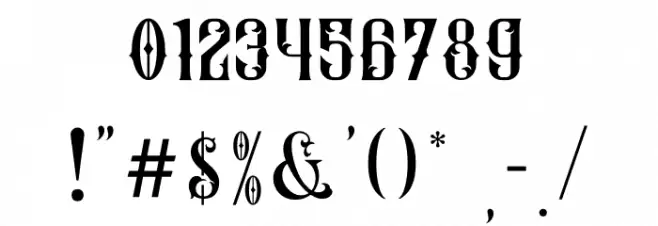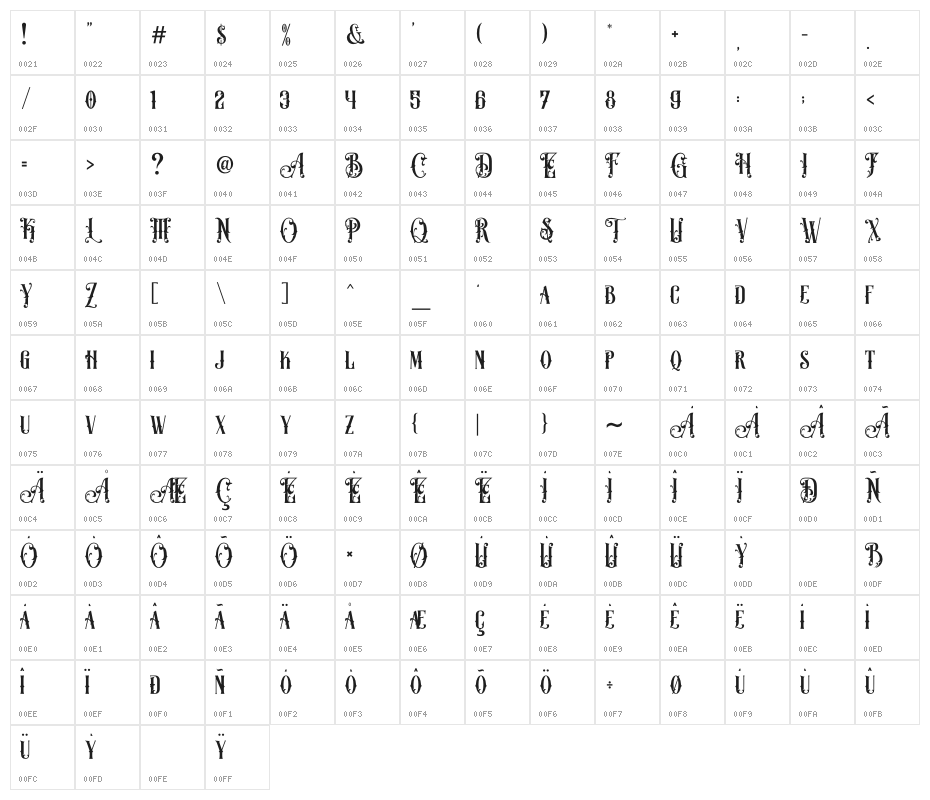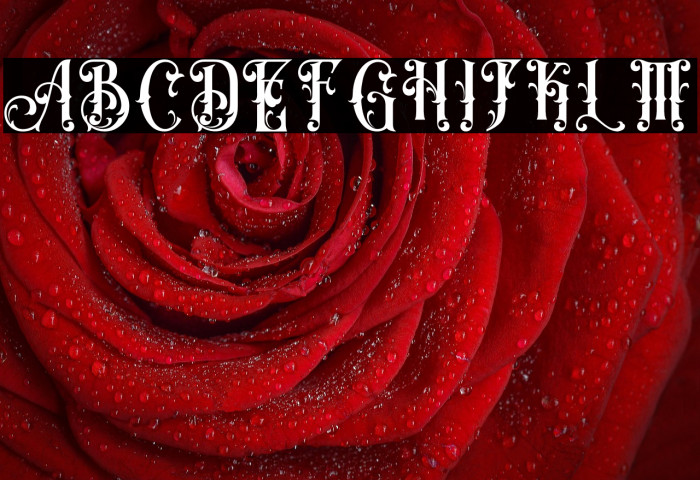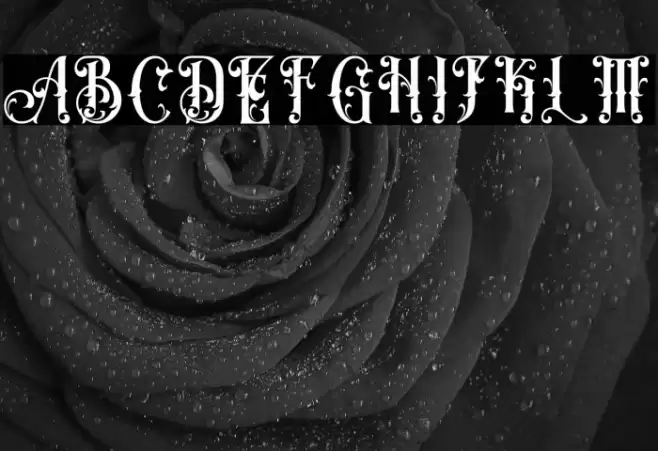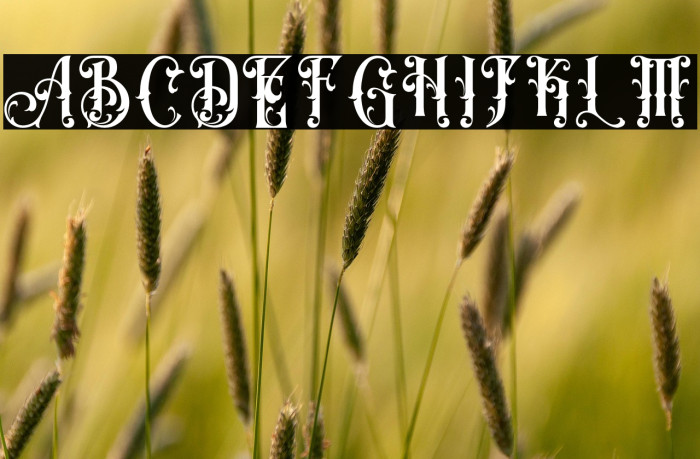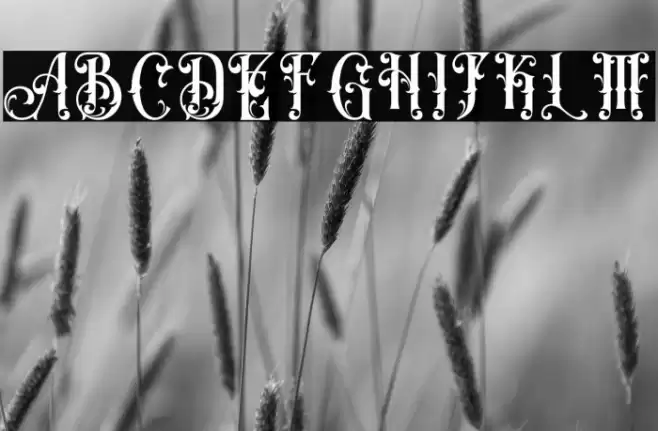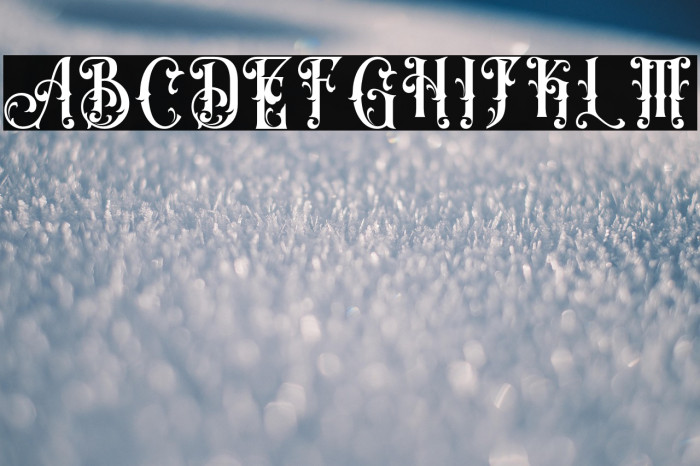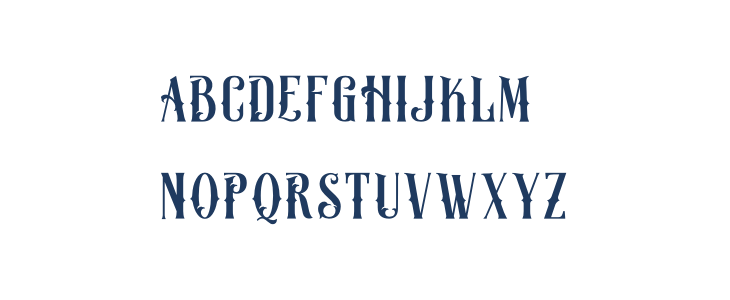
Demon Blade Font
Demon Blade Description
This font features an intricate and decorative style, characterized by ornate swirls and flourishes that extend from the main strokes of each letter. The uppercase letters are particularly elaborate, with embellishments that give a sense of elegance and drama. The lowercase letters maintain a more restrained design, yet still carry the decorative theme. The numerals and special characters are consistent with the overall aesthetic, featuring unique and artistic details. This font is ideal for projects that require a bold and eye-catching display, such as posters, logos, or themed event invitations.
| Proposed Projects | Ideal for posters, logos, themed event invitations, and any project needing a dramatic and decorative touch. |